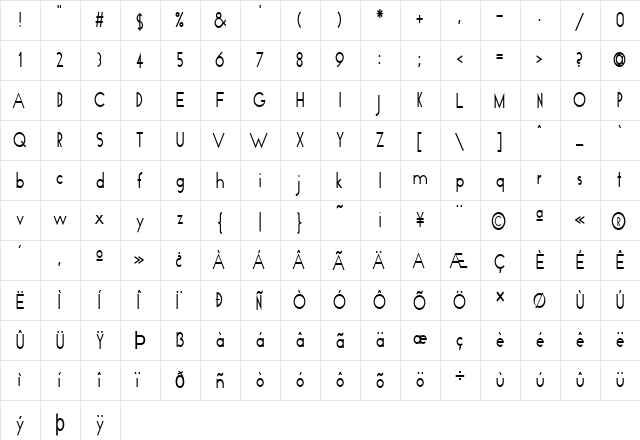
FZ BASIC 19 COND Normal Font Preview
FZ BASIC 19 COND Normal
Design Context for FZ BASIC 19 COND Typeface
FZ BASIC 19 COND is a composed and adaptable typeface that performs quietly and consistently across a wide range of design contexts. Its narrow stance lets it pack a punch even in space-constrained designs.